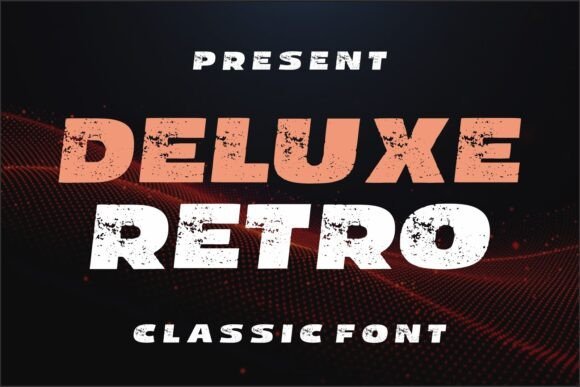
Get Ready to Level Up Your Designs with the Ultimate Grunge Display Font
Have you ever been stuck on a design project, staring at a blank page, desperately searching for the perfect font to bring your vision to life? We’ve all been there. But what if I told you that there’s a game-changing font that can instantly elevate your creations and make them stand out from the crowd? Introducing the Deluxe Retro Font – a cool and elegant grunge display font that’s about to become your new go-to asset.
Whether you’re a graphic designer, a typographer, or simply a creative enthusiast, the Deluxe Retro Font is a valuable addition to your fonts’ library. Its unique blend of grunge and elegance makes it versatile enough to suit any topic or style, from modern to vintage. With the Deluxe Retro Font, you’ll be able to add a touch of sophistication and personality to your designs, making them truly unforgettable.
Deluxe Retro Font Key Features
- Font Family: Deluxe Retro Font offers a unique and stylish font family with various styles, including Regular, Italic, Bold, and Bold Italic.
- Unique Characteristics: The Deluxe Retro Font features a distressed, vintage aesthetic with subtle texture and imperfections, giving it a unique and eye-catching look.
Deluxe Retro Font Review
I recently had the chance to work with the Deluxe Retro Font, and I must say it’s a fun addition to any design project. ✨ The font’s unique blend of vintage and modern elements makes it perfect for creating eye-catching headers and titles. It’s especially great for those who want to evoke a sense of nostalgia in their designs.
- ✨ Unique and eye-catching: The Deluxe Retro Font is sure to grab the user’s attention and add a touch of personality to any design.
- ✨ High-quality rasterization: The font renders well at various sizes and resolutions, making it suitable for both web and print use.
- ✨ Versatile: The font can be used in a variety of design contexts, from logos and branding to packaging and advertising.
- ⚠️ Limited language support: The Deluxe Retro Font may not be suitable for designs that require support for languages other than English.
- ⚠️ Not ideal for body text: While the font is great for headlines and titles, it may be difficult to read in large blocks of body text due to its unique character spacing.
Overall, the Deluxe Retro Font is a great choice for designers who want to add a touch of retro flair to their projects. While it may have some limitations, its unique style and high-quality rasterization make it a valuable addition to any design library.
Getting the Most Out of Deluxe Retro Font
Some tips for getting the most out of Deluxe Retro Font include using it in combination with distressed or vintage design elements, such as textures and patterns, to create a unique and eye-catching look. You can also use the font in bold or italic styles to add emphasis to your text. Experiment with different font sizes and colors to create a look that is both retro and modern.
Deluxe Retro Font is commonly used in design projects that require a vintage or retro look, such as: